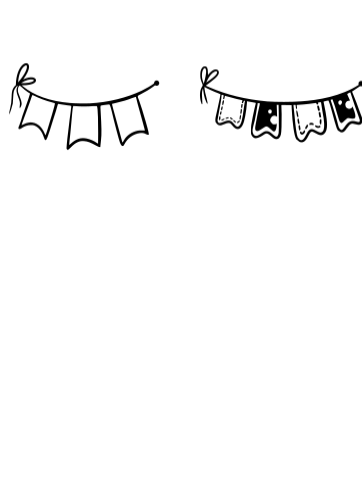
Cute Bunting Font: Unleash Your Creative Expression with Whimsical Dingbats
In the world of design, fonts play a crucial role in conveying emotions and setting the tone for a project. Among the numerous font options available, dingbat fonts have gained popularity for their unique and creative appeal. One such font that has caught the attention of designers and crafters alike is the Cute Bunting Font. This engaging and whimsical dingbat font is designed to add a dash of playfulness to your designs, making it an excellent choice for those looking to unleash their creative expression.
What is Cute Bunting Font?
Cute Bunting Font is a hand-drawn dingbat font that boasts distinct and charming designs. Unlike traditional fonts, dingbat fonts use symbols, icons, and shapes instead of letters, making them perfect for adding visual interest to projects. Cute Bunting Font takes it a step further with its whimsical and playful approach, allowing designers to add a personal touch to their work.
Benefits of Using Cute Bunting Font
So, what makes Cute Bunting Font an excellent choice for designers? Here are some benefits of using this delightful font:
- Unique and Playful Designs: Cute Bunting Font offers a fresh and unique spin on traditional dingbat fonts. Its hand-drawn designs are playful, charming, and sure to capture the attention of your audience.
- Versatile: Cute Bunting Font can be used for a wide range of projects, from crafting and party decorations to digital designs and branding.
- Customizable: With Cute Bunting Font, you can mix and match different designs to create a unique look that suits your project’s theme.
10 Project Ideas to Get You Started with Cute Bunting Font
Now that you’re excited about Cute Bunting Font, here are some project ideas to get you started:
- Party Decorations: Create custom banners, garlands, and decorations for your next party or event.
- Crafting Projects: Add a personal touch to your scrapbooking, card making, and other crafting projects.
- Digital Invitations: Design eye-catching digital invitations for special occasions, such as birthdays, weddings, and baby showers.
- Branding and Packaging: Use Cute Bunting Font to create unique and memorable branding and packaging designs.
- Social Media Graphics: Add a playful touch to your social media graphics, such as Facebook posts, Instagram stories, and Twitter headers.
- Blog and Website Design: Use Cute Bunting Font to create visually appealing blog and website designs.
- Wedding Stationery: Design beautiful wedding stationery, including invitations, save-the-dates, and thank-you cards.
- Children’s Party Themes: Create custom party themes, including decorations, invitations, and activities.
- Gift Tags and Cards: Add a personal touch to your gift tags and cards with Cute Bunting Font.
- DIY Projects: Use Cute Bunting Font to create custom DIY projects, such as signs, banners, and wall art.
Tips and Tricks for Using Cute Bunting Font
To get the most out of Cute Bunting Font, here are some tips and tricks to keep in mind:
- Experiment with Colors: Don’t be afraid to experiment with different colors and color combinations to match your project’s theme.
- Mix and Match Designs: Combine different designs to create a unique look that suits your project’s style.
- Use it with Other Fonts: Pair Cute Bunting Font with other fonts to create a visually appealing design.
- Pay Attention to Size and Scale: Make sure to adjust the size and scale of your designs to ensure they fit your project’s requirements.
Cute Bunting Font is an engaging and whimsical dingbat font that can add a dash of playfulness to your designs. With its unique and hand-drawn designs, this font is perfect for designers looking to unleash their creative expression. Whether you’re working on a crafting project, party decorations, or digital designs, Cute Bunting Font is an excellent choice. So, why not give it a try and see how it can enhance your designs and bring a fresh spin to your creative projects?